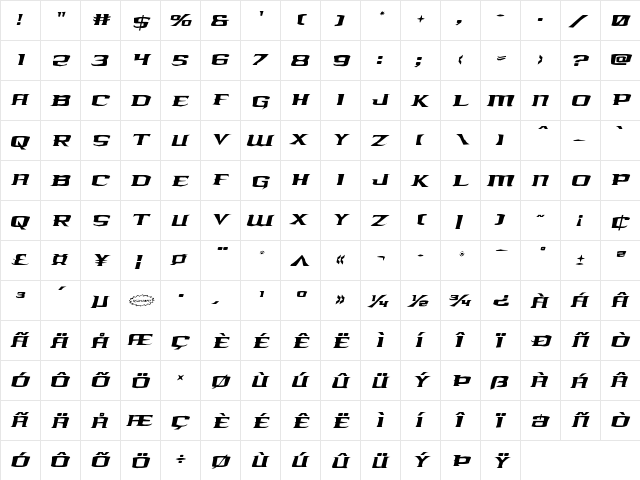
Kreature Kombat Rough Italic Italic
Design Context for Kreature Kombat Rough Italic Typeface
Kreature Kombat Rough Italic embraces imperfection — its rough, textured character adds raw authenticity to designs that want to feel lived-in and unconventional. The dynamic lean of this cut emphasises speed and emphasis in any layout.
Suited to punk-influenced zines, underground music branding, streetwear, and raw, anti-corporate design.
Pro Tip: Pair Kreature Kombat Rough Italic with intentionally raw or lo-fi design elements. Fighting against it with overly polished surroundings will undermine its personality.